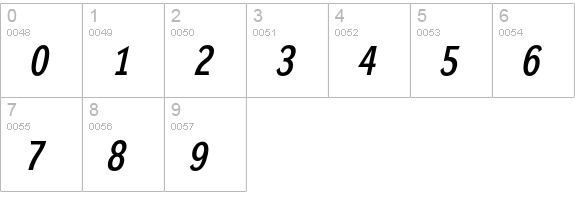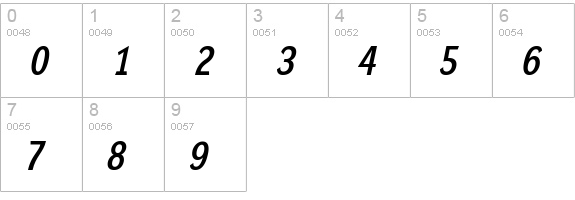
Dynamo Italic D M Font Details
Dynamo Italic D M is a distinctive, italic variant in the Dynamo typeface family \xE2\x80\x94 well suited to design and typography projects.
Dynamo Italic D M is a modern and stylish font that exudes sophistication and elegance. With its sleek and dynamic design, this font is perfect for adding a touch of class to various projects, from branding to editorial design. The italic style adds a sense of fluidity and movement, making it ideal for creating eye-catching headings and subheadings. What sets Dynamo Italic D M apart is not only its striking aesthetics but also its versatility. This font can be seamlessly integrated into a wide range of design applications, making it a valuable addition to any designer's toolkit. Whether you're working on a website, poster, or packaging design, Dynamo Italic D M will elevate your project and make a lasting impression. Best of all, Dynamo Italic D M is available for free download at FontsMarket.com. This means that you can start using this stylish font in your projects right away, without any cost. Don't miss out on the opportunity to enhance your designs with the elegance and sophistication of Dynamo Italic D M - download it today and see the difference it can make!